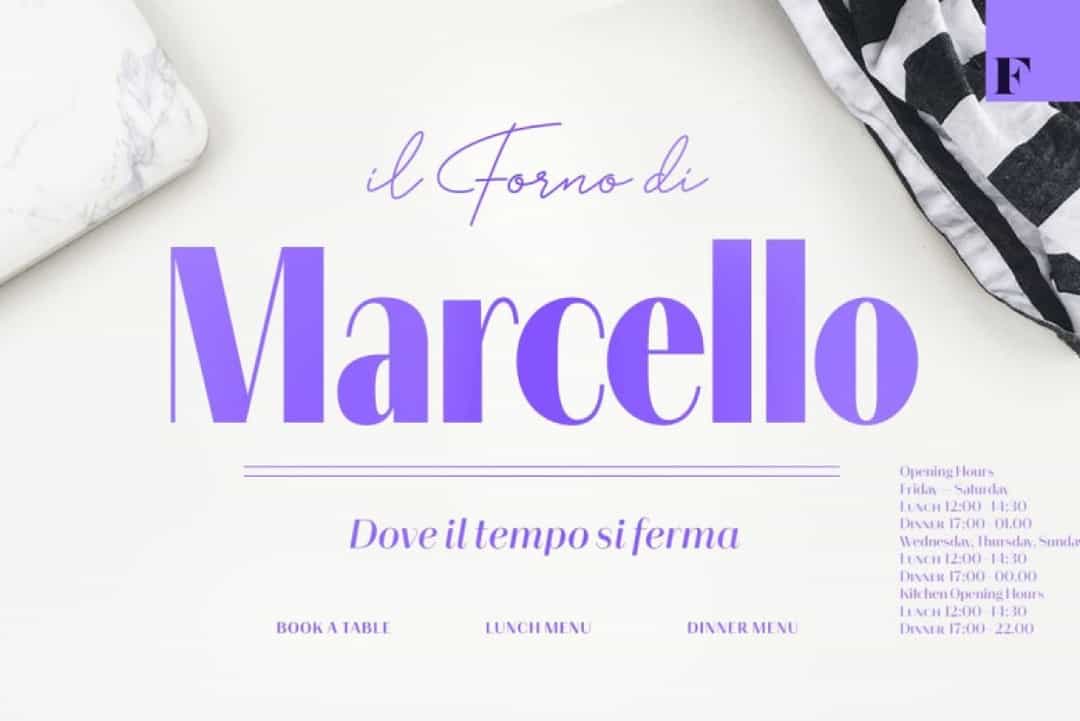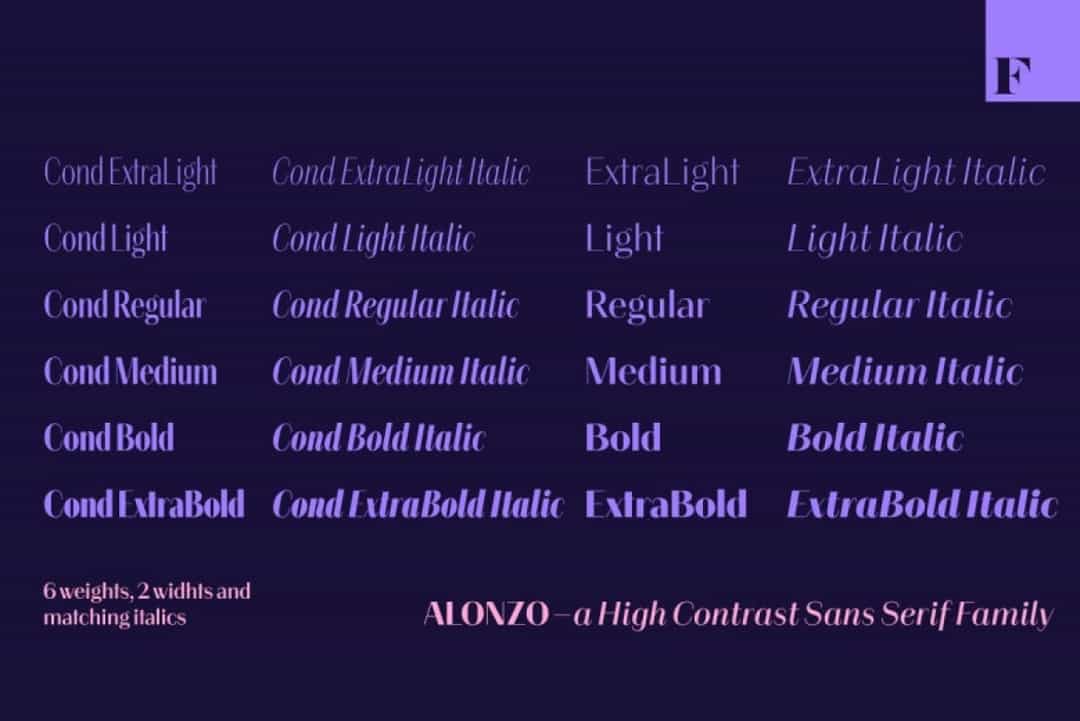
Alonzo is an easygoing modern who speaks multiple languages fluently. Available in six weights with two widths each and its italics for 24 styles total, Alonzo offers chic high contrast styles ideal for high end fashion, cultural spaces, nightclubs, restaurants etc.